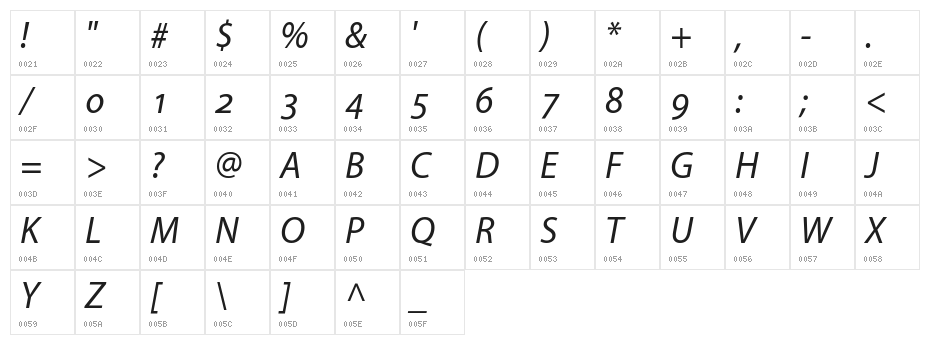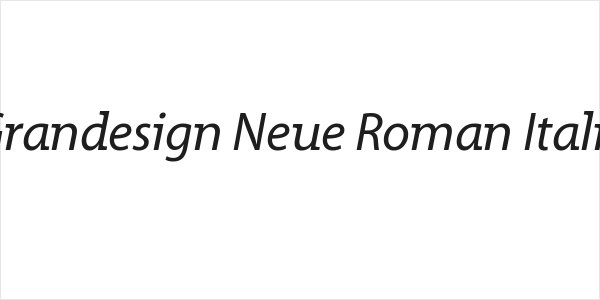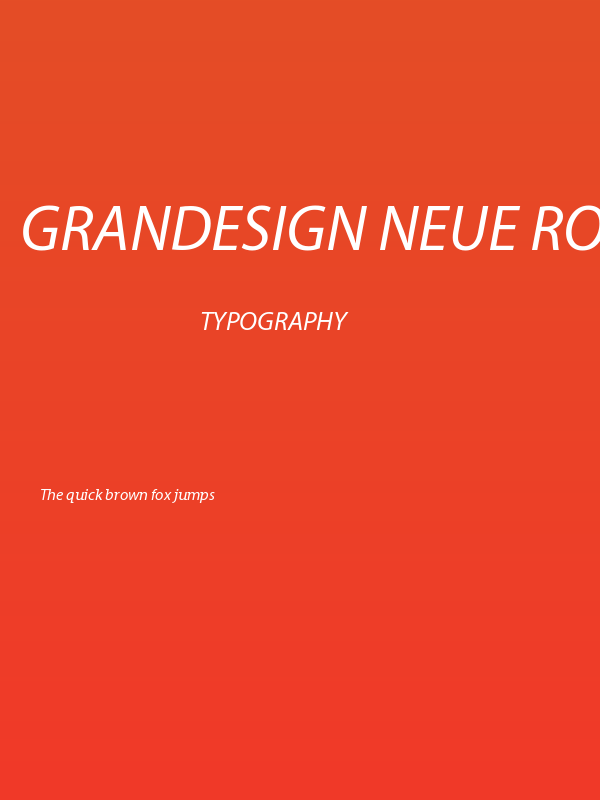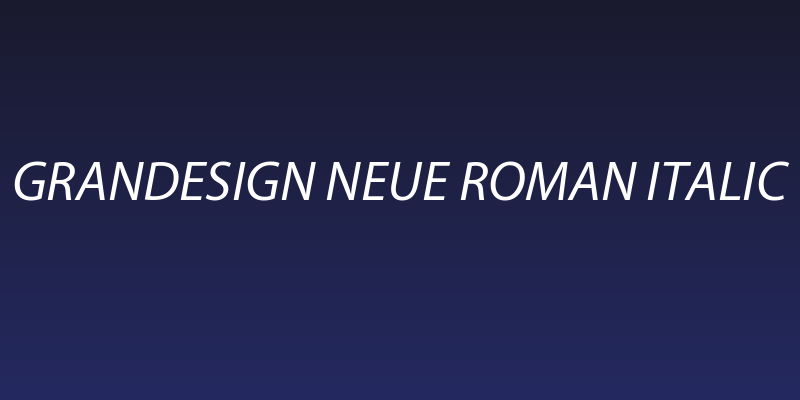
Grandesign Neue Roman Italic Font
Grandesign Neue Roman Italic Description
This font exhibits a sleek and modern design with a slight italic slant, giving it a dynamic and elegant appearance. The characters are well-proportioned, with a consistent stroke width that maintains readability across various sizes. The uppercase letters are bold and commanding, while the lowercase letters are more subtle, offering a nice contrast. The numerals are clear and distinct, ensuring they stand out in any context. Special characters are thoughtfully designed to complement the overall style, making this font versatile for both formal and creative projects.